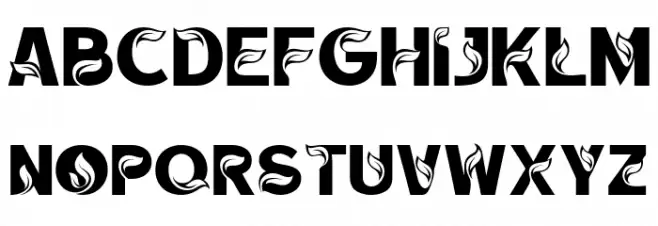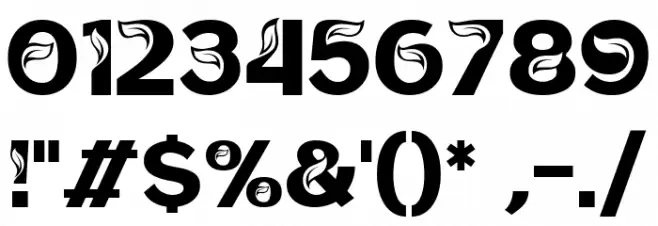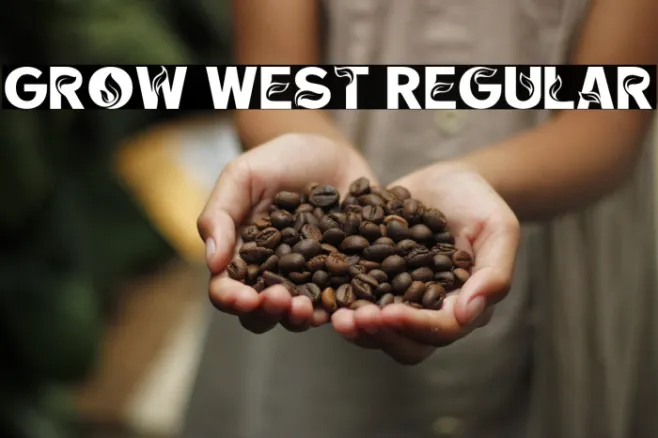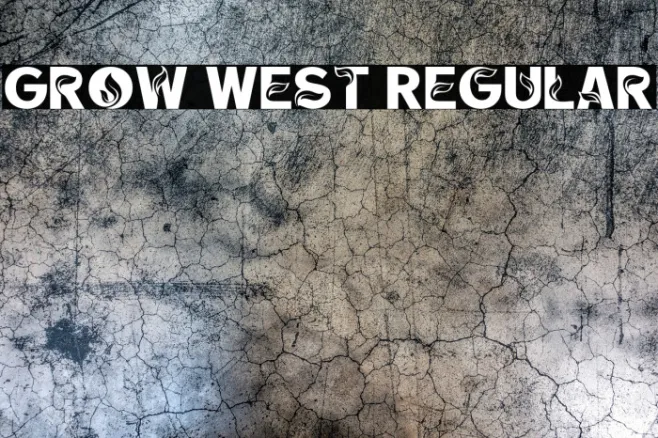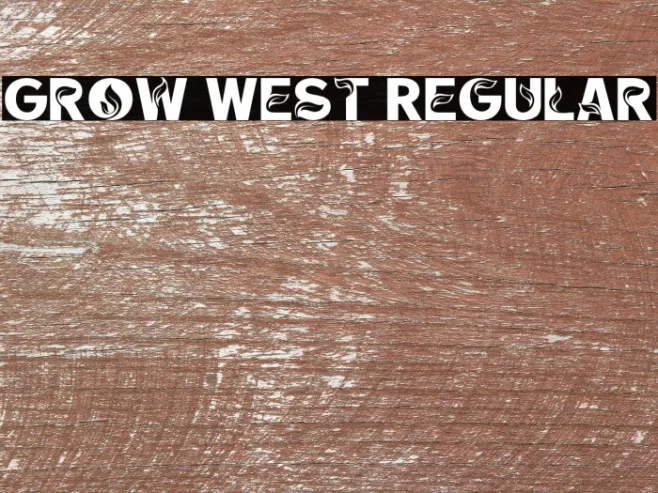
Grow West Regular
This font features a bold and striking design, characterized by its thick, heavy strokes and unique decorative elements. Each character is adorned with intricate leaf-like embellishments that add a touch of nature-inspired flair. The uppercase and lowercase letters maintain a consistent weight, providing a strong visual impact. The numerals and special characters are equally bold, ensuring uniformity across all glyphs. This font's distinctive style makes it ideal for projects that require a bold statement or a creative twist.
A bold, decorative font with nature-inspired embellishments.
- Proposed Projects: Ideal for branding, posters, and creative projects that require a bold, artistic touch.
- Overall Style: Decorative
- Use Case: Headlines, Logos, Posters